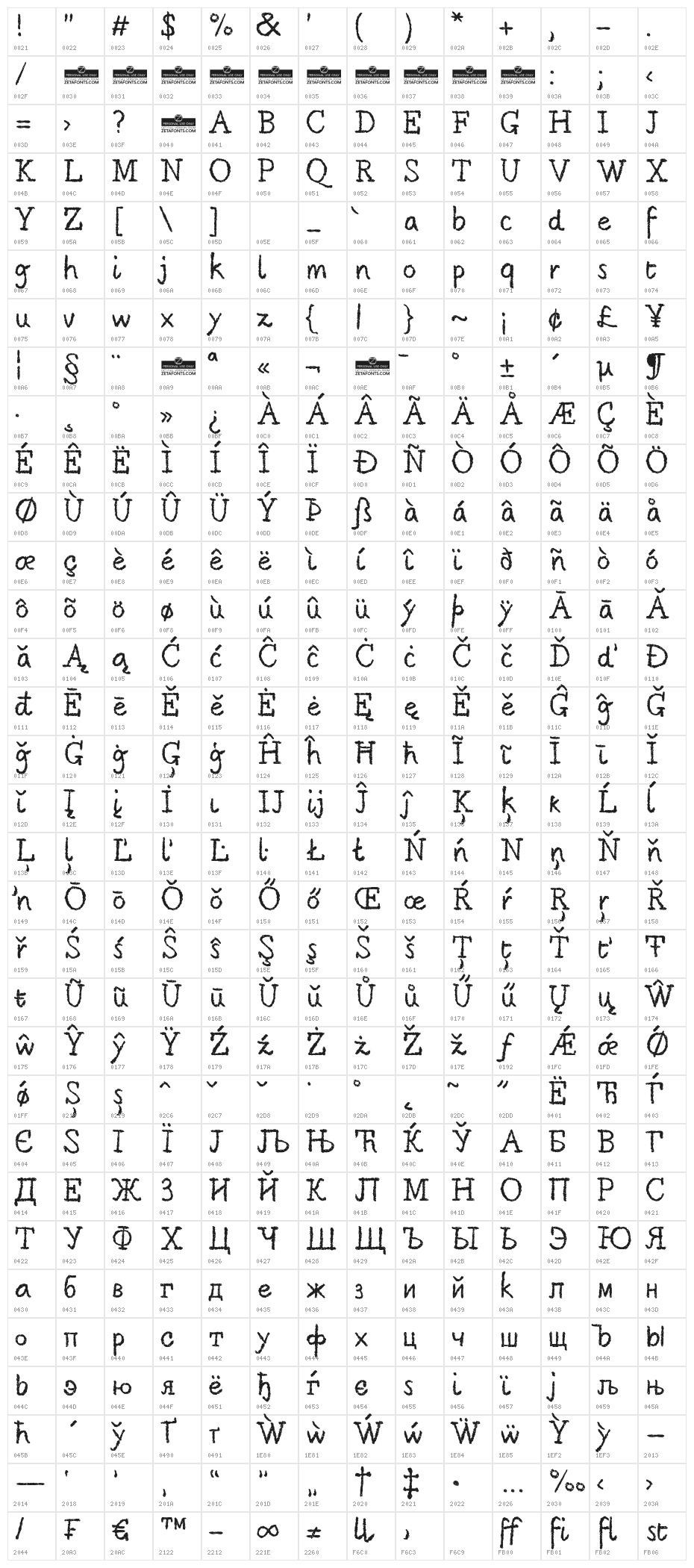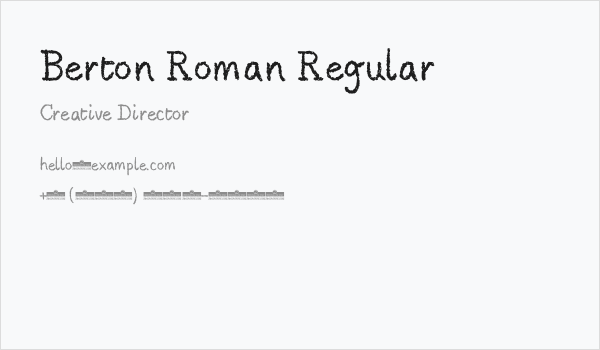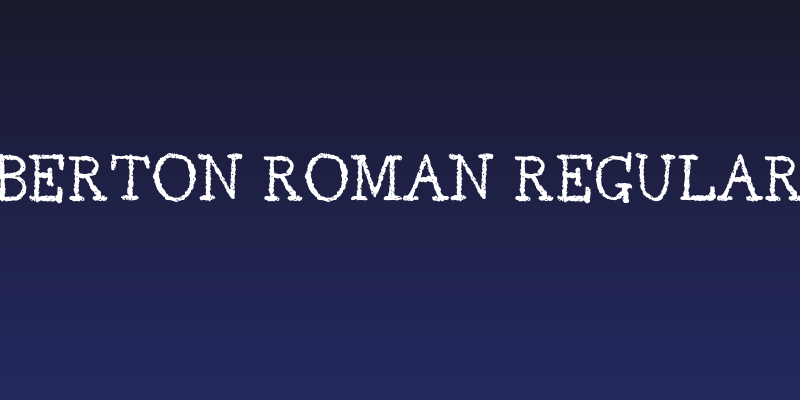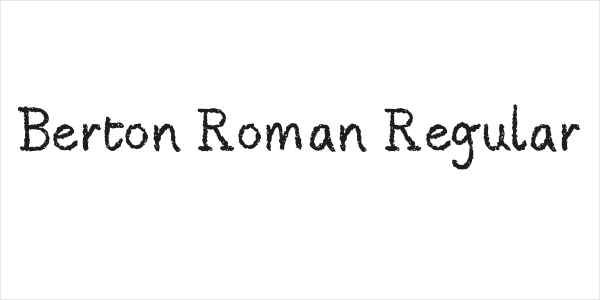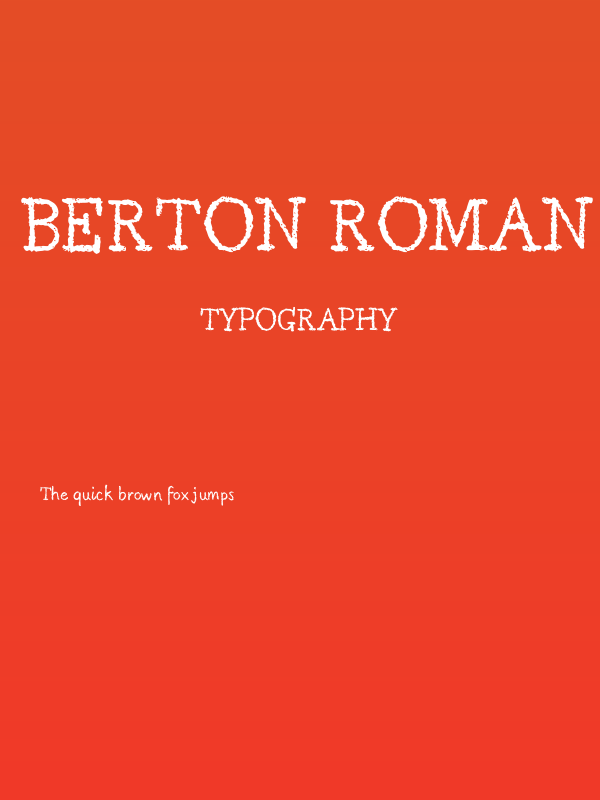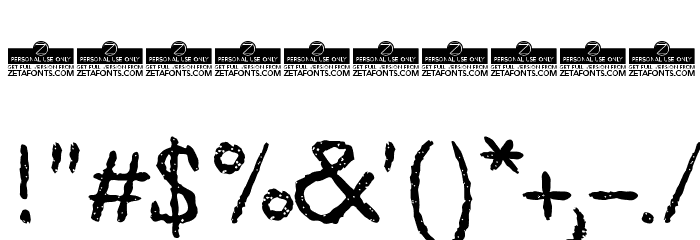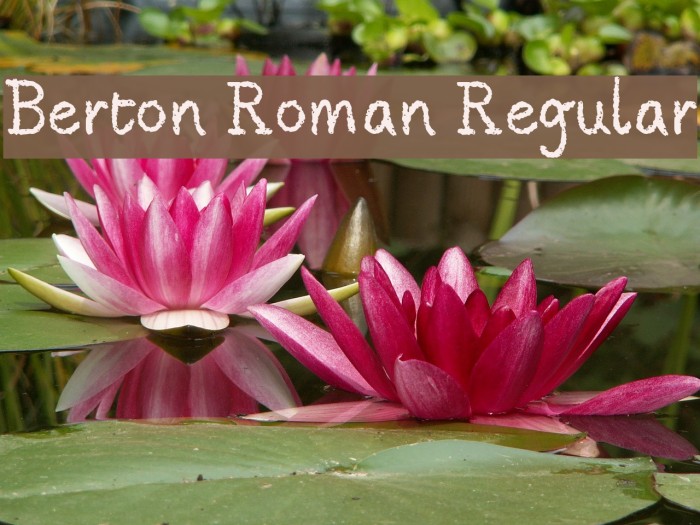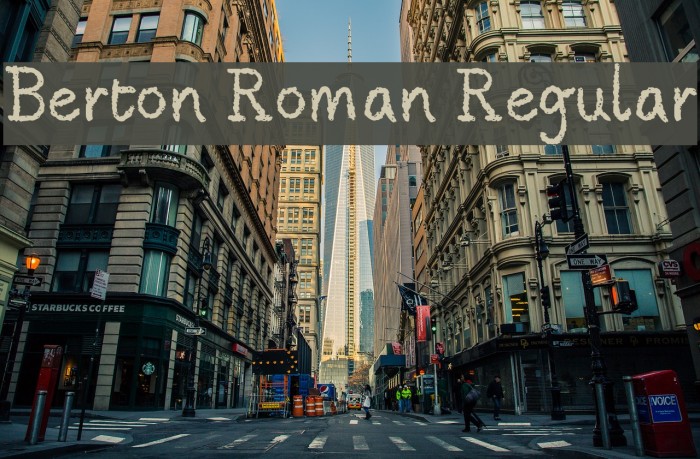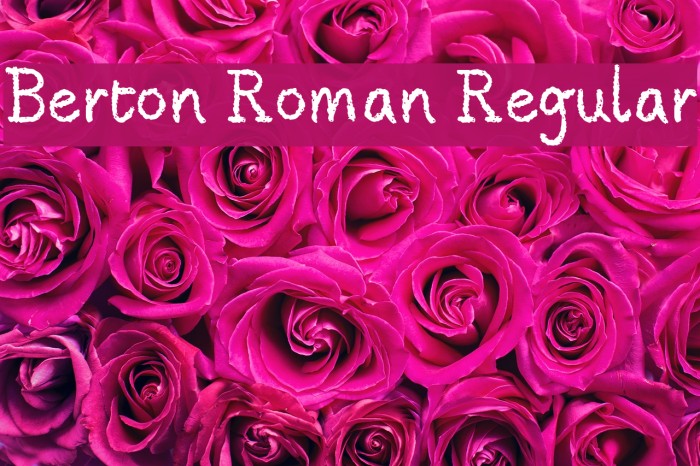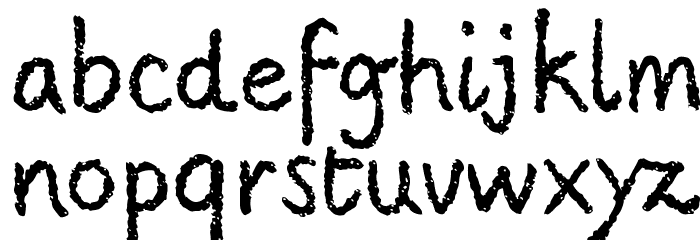
Berton Roman Regular Font
Berton Roman Regular Description
This font features a textured, hand-drawn appearance, giving it a rustic and organic feel. The characters are slightly irregular, with a rough, uneven stroke that adds a sense of authenticity and charm. The uppercase and lowercase letters maintain a consistent style, with the uppercase being slightly more formal. The numerals and special characters follow the same textured style, ensuring a cohesive look across all text elements. This font is ideal for projects that require a personal touch or a vintage aesthetic.
| Use Case | Headlines, Logos, Decorative text |
| Proposed Projects | Ideal for greeting cards, invitations, posters, and branding projects that aim for a personal or vintage touch. |